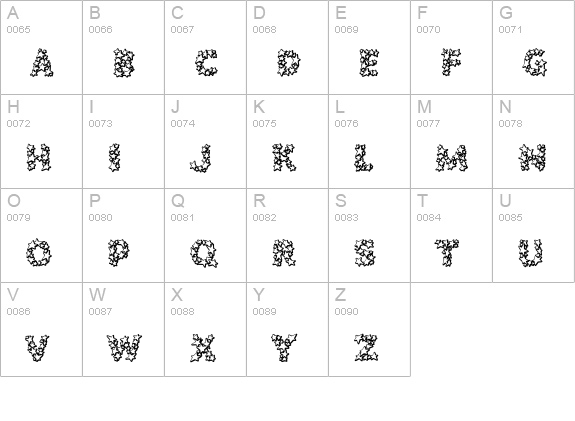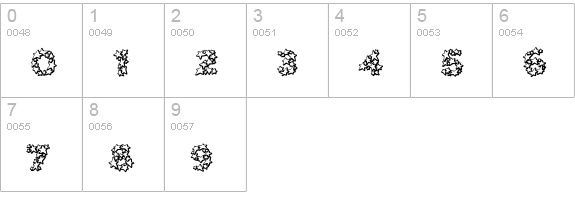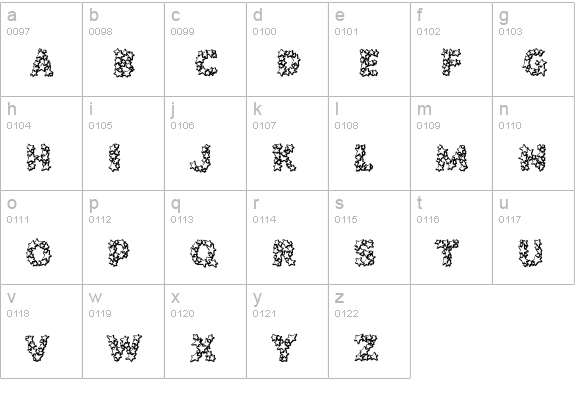
Popstars Font Details
The Popstars font is a stylish and modern typeface that exudes a playful and fun vibe perfect for any project that needs a touch of personality. With its unique design and eye-catching appeal, Popstars is sure to make your text stand out and captivate your audience. This versatile font is ideal for a wide range of applications, from posters and flyers to social media graphics and branding materials. The best part? Popstars is available for free download at FontsMarket.com, making it easily accessible to anyone looking to add a pop of creativity to their designs. Don't miss out on this fantastic opportunity to enhance your projects with the vibrant and energetic Popstars font!